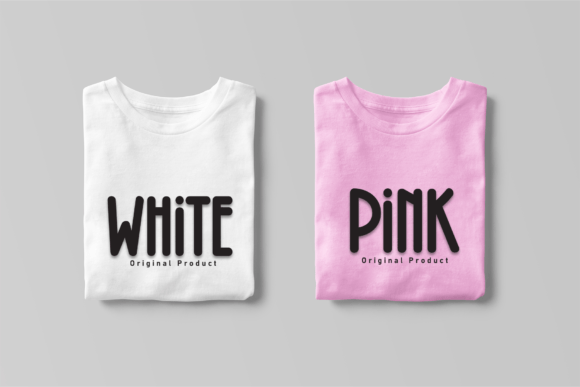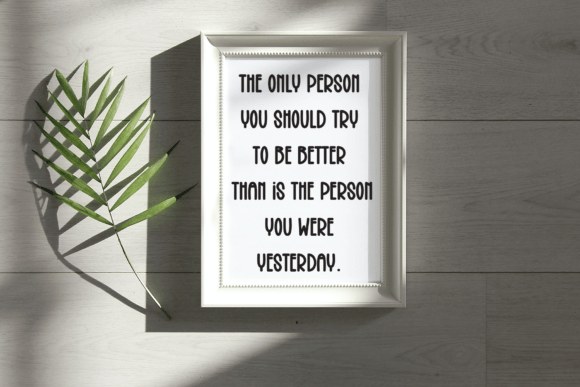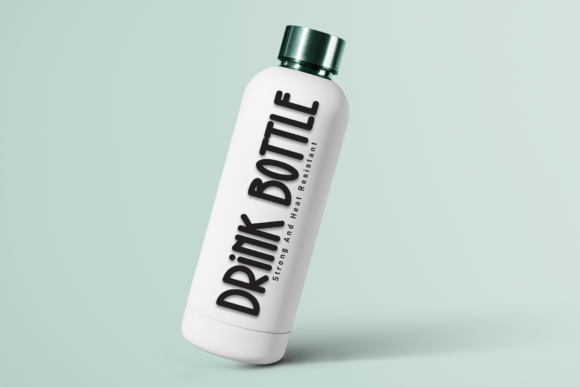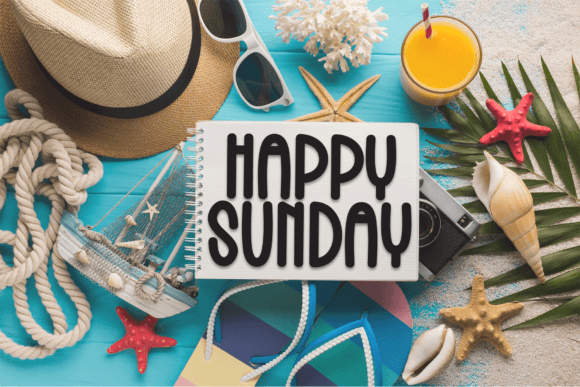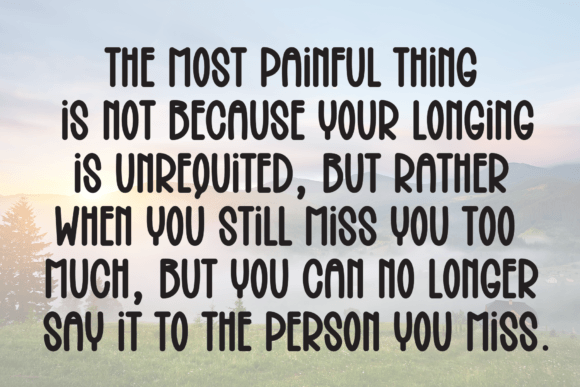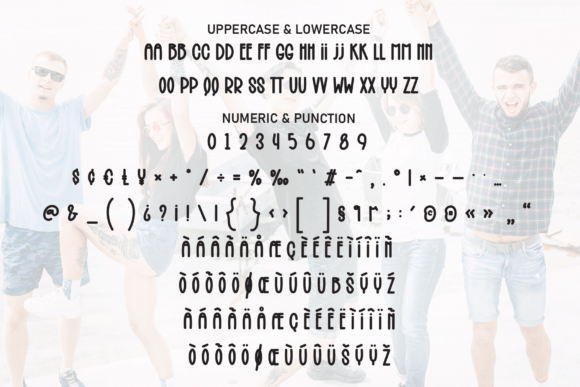
Introduction to Friend Squad Font
Friend Squad is a casual sans-serif font that brings a relaxed and playful vibe to any project.
Its bold, approachable letterforms make it perfect for headlines, posters, and branding The font’s easygoing style effortlessly captures a sense of fun and spontaneity, enhancing any creative work.
Key Features of Friend Squad Font